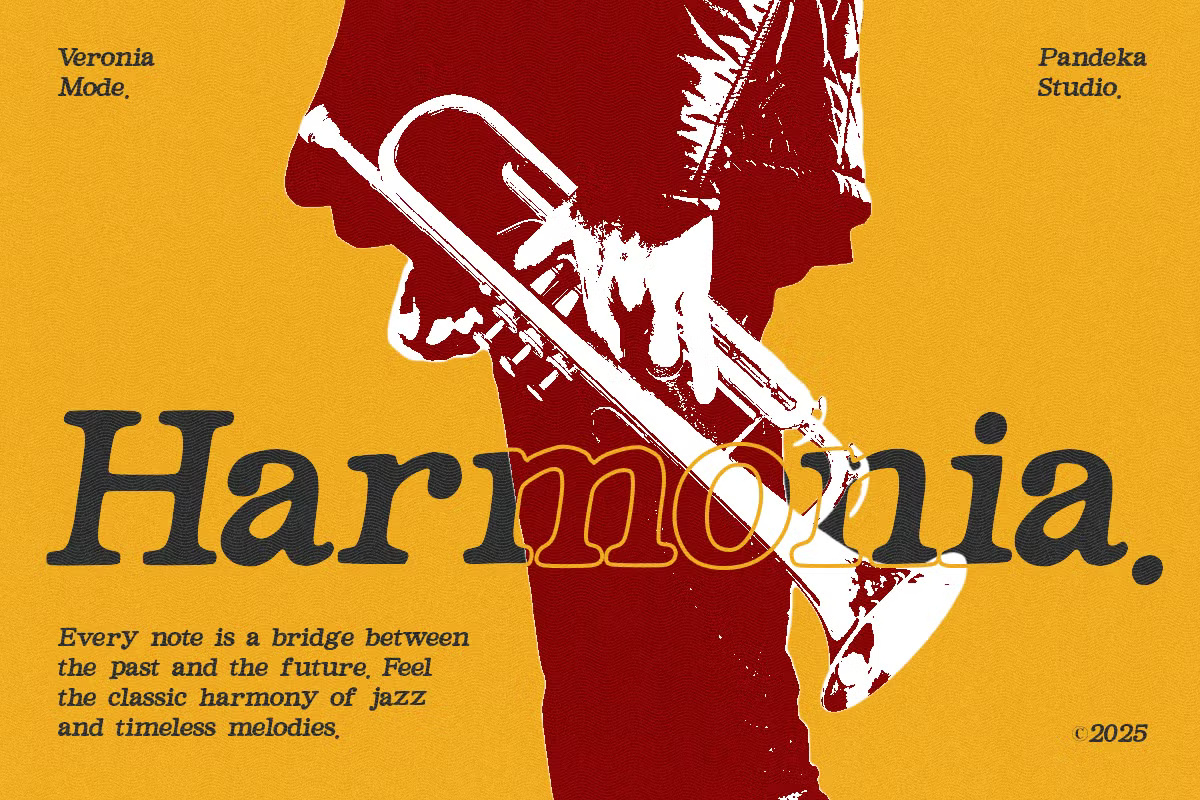
Veronia Mode Font
Veronia Mode is a bold, retro slab serif font that blends vintage charm with timeless elegance. Its intricate serifs and smooth flow lines create a striking display, making it a perfect choice for branding, posters, signage, editorial design, and packaging. Whether you’re aiming for a nostalgic theme or a bold typographic presence, Veronia Mode adds a touch of classic sophistication.
Veronia Mode Slab Serif Font